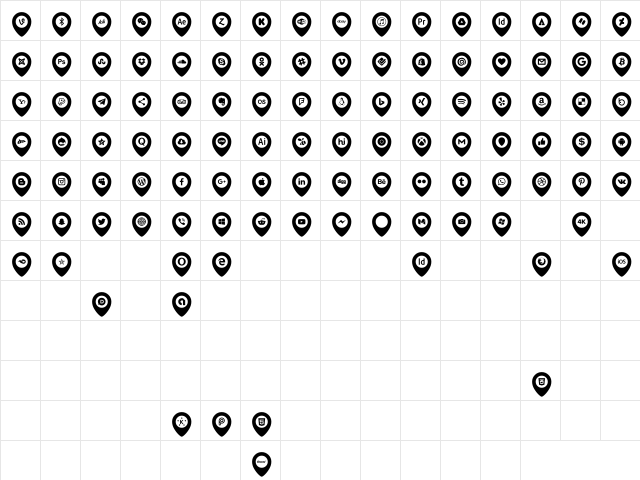
Icons Font Color Regular
Design Context for Icons Font Color Typeface
Icons Font Color is a composed and adaptable typeface that performs quietly and consistently across a wide range of design contexts.